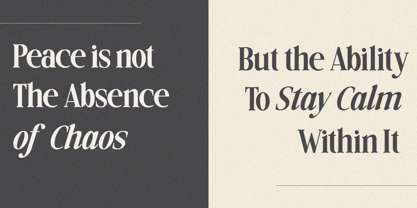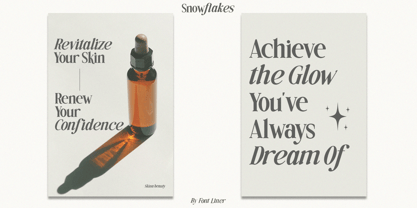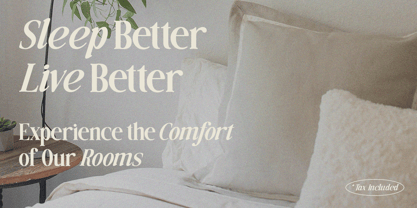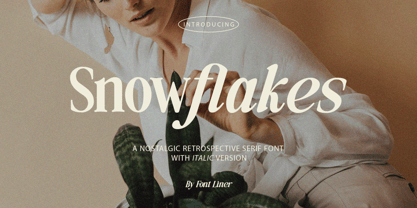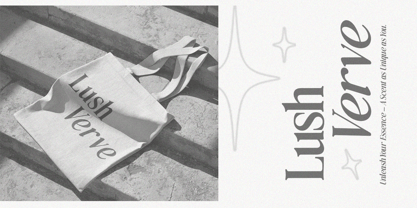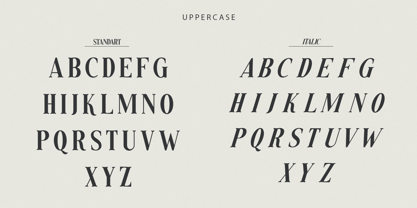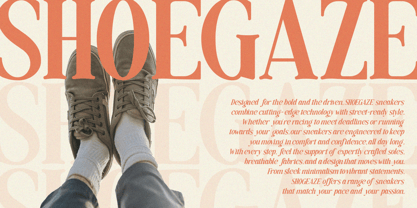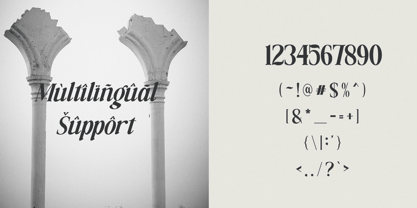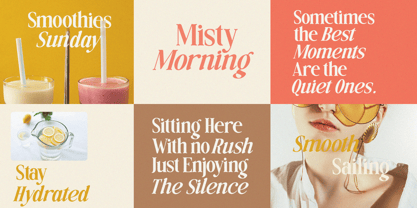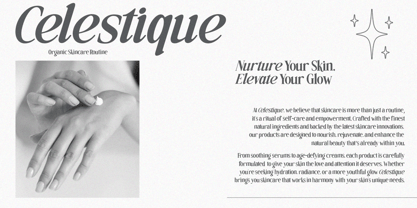
Snowflakes
by Font Liner
The Snowflakes Font Family was designed by Ghina Luthfiarieska and published by Font Liner. Snowflakes contains 2 styles and family package options. More about this family
Snowflakes is an nostalgic serif with a feminine style. This beautiful collection comes with regular and italic versions and will instantly add a touch of class to all your design projects. It is a perfect branding font and will help you create logos, wedding designs and all other commercial projects with ease.
Designers: Ghina Luthfiarieska
Foundry: Font Liner